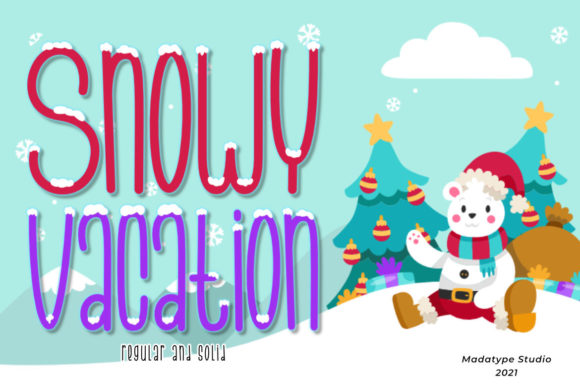
In the realm of winter-inspired designs, Snowy Vacation Font stands majestically, a display font of frosty elegance and playful charm. This modern creation by Typerex is an enchanting dance of letters, evoking the magic of a snowy wonderland. Snowy Vacation Font is a creative masterpiece that brings the essence of winter to life, infusing your designs with a captivating touch of seasonal wonder.
Picture this: a design that transports you to a snow-kissed landscape, where snowflakes twirl merrily against a backdrop of sparkling white. Snowy Vacation Font is your artistic passport to this enchanting realm, allowing you to weave tales of joy, laughter, and adventure. Its carefully crafted characters dance harmoniously, reminiscent of the delicate tracery left by frost on a windowpane.
Whether you're conjuring whimsical illustrations for a children's book, crafting captivating posters for a winter festival, or designing a heartwarming logo for a seasonal business, Snowy Vacation Font is your ultimate companion. Its playful yet sophisticated aura adds a touch of enchantment to any project, inviting viewers to immerse themselves in the magic of winter.
ButSnowy Vacation Font isn't just a font; it's an experience. It's the sound of sleigh bells jingling in the crisp winter air, the taste of hot chocolate warming your hands on a snowy day, the thrill of building a snowman with loved ones. With every letter you type, you'll feel the magic of winter come alive, transforming your designs into captivating works of art.
So, if you seek a font that captures the heart of winter, look no further. Snowy Vacation Font is your gateway to a realm of creativity and enchantment. Embrace the power of this remarkable display font and let your designs dance with the magic of snowflakes and the whisper of the winter wind.